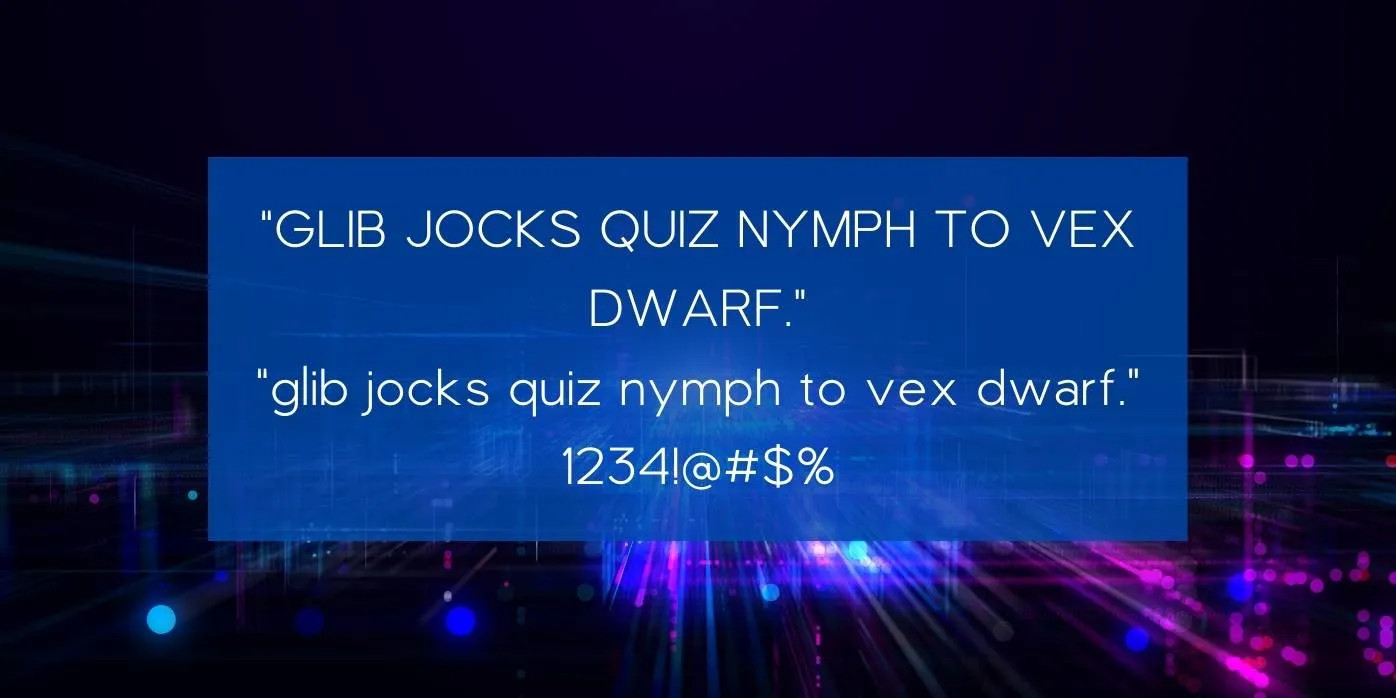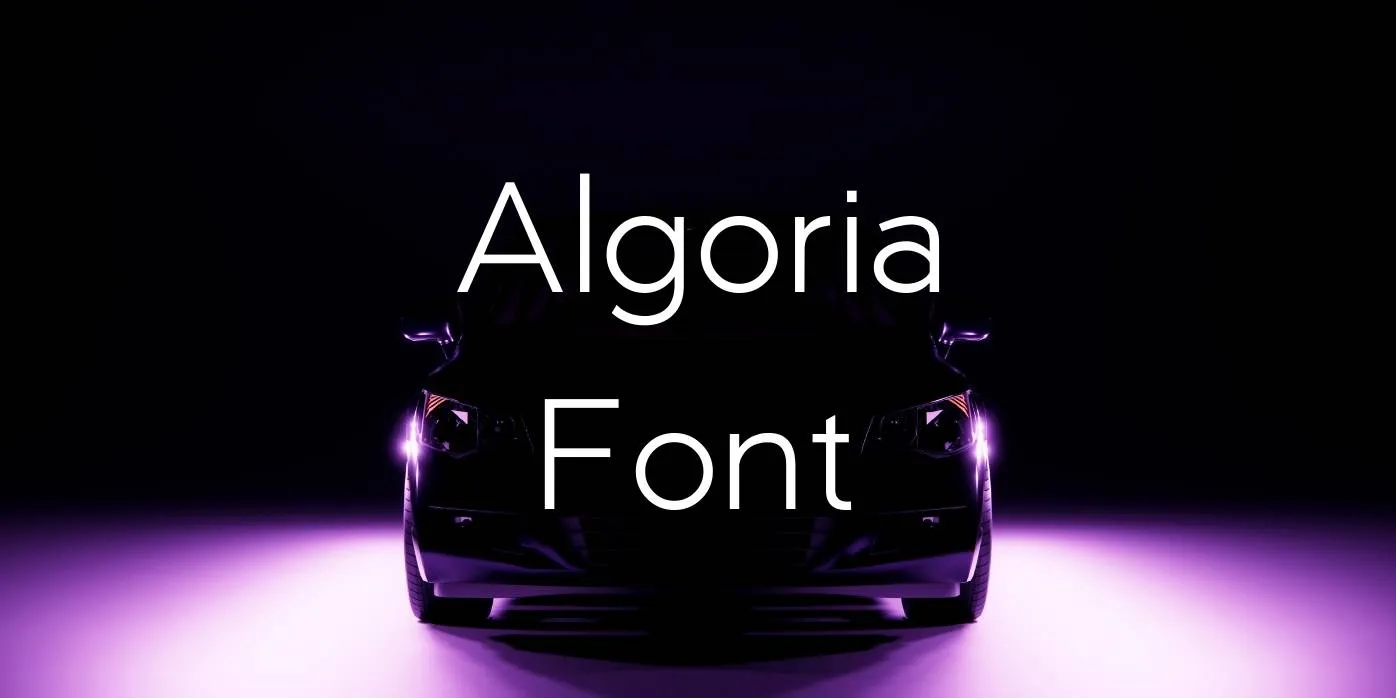
Algoria Font
Today, we introduce a stylish typeface that is famous with the name Algoria Font. This family belongs to the sans serif typeface. Sealoung is the creator of this typeface. And it was released by Linotype on 5 March 2018.
Algoria Font has come in three styles. Those are Algoria Text, Algoria Display, and Algoria Titling. All of them have an upright posture with true italics. And they contain 723 glyphs.